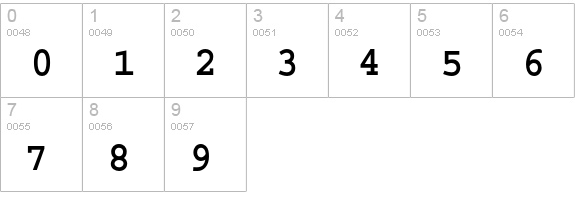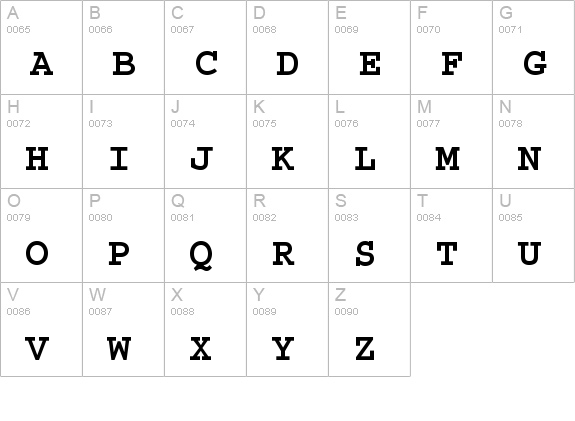
Courier Std Bold is a strong, high-contrast variant in the Courier typeface family \xE2\x80\x94 well suited to headlines, attention-grabbing titles, and strong calls-to-action.
Courier Std Bold is a classic and timeless font that exudes professionalism and reliability. With its bold and clear letterforms, this font is perfect for conveying important information in a straightforward and no-nonsense manner. Whether you're creating documents, reports, or any other type of written communication, Courier Std Bold will ensure that your message is delivered with clarity and impact. And the best part? Courier Std Bold is available for free download at FontsMarket.com. So you can easily access and use this versatile font for all your design projects without any cost. Don't miss out on the opportunity to enhance your work with the bold and authoritative look of Courier Std Bold. Download it now and elevate your typography game!